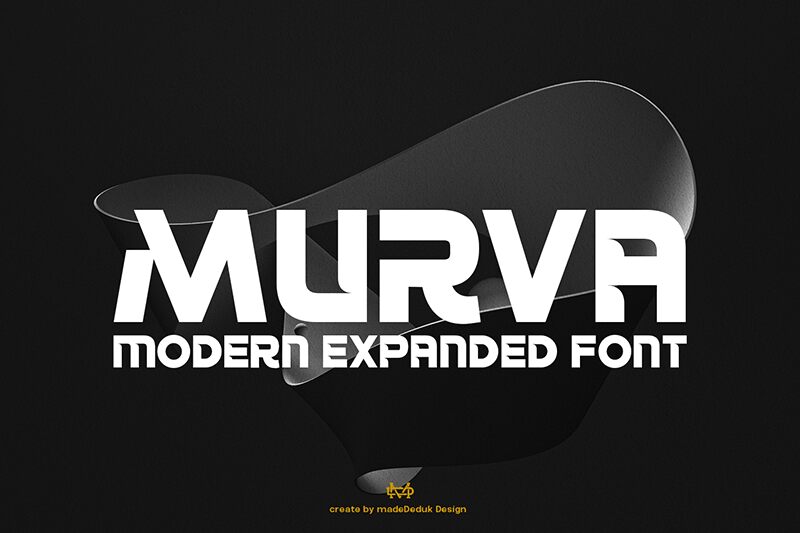
Murva Demo
Murva font by madeDeduk is a free bold techno display font. Built around sculpted diagonal cut-ins and beveled corners, it packs monolithic strokes into tight spacing that still breathes thanks to crisp wedge-shaped apertures. The letters feel machined—like plates shaved by a carbide bit—giving headlines a fast, engineered snap without losing legibility.
Using Murva, you get punchy rhythm and a vivid sense of motion that shines on esports branding, sci‑fi posters, racing titles, tech event graphics, stream overlays, and game UI headers. This free font loves big sizes with a touch of extra tracking; pair it with a light geometric sans for body copy to keep the spotlight on Murva’s angular energy.